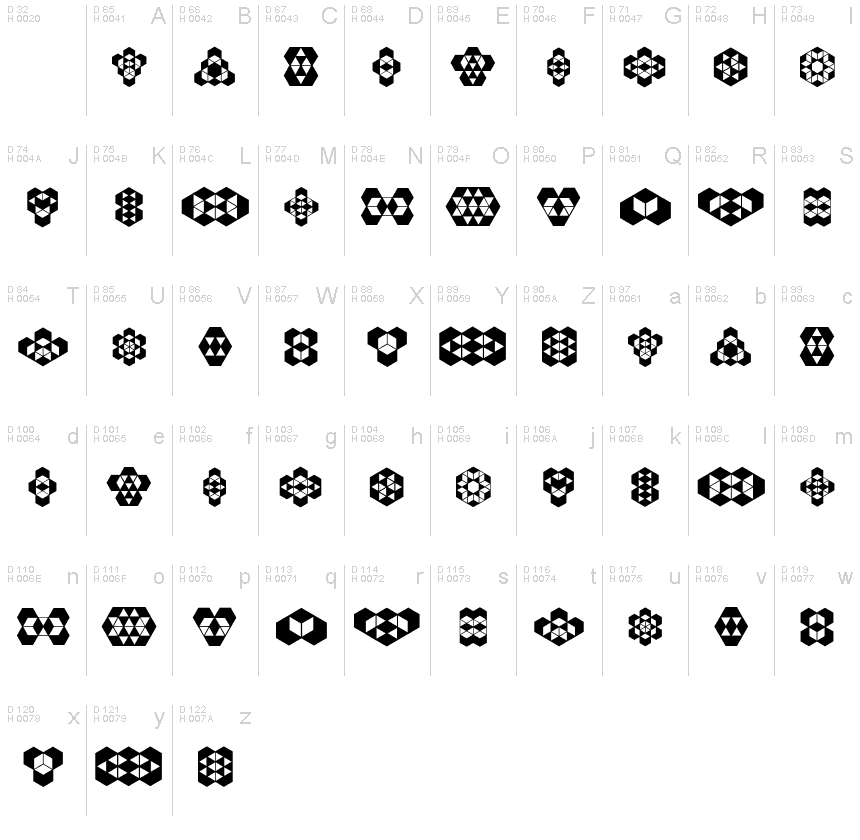
Hexagonos Regular
Hexagonos, the innovative creation by font designer Vladimir Nikolic, is a captivating dingbats typeface that will add a touch of uniqueness to your projects. With its hexagonal design, this font is ideal for crafting eye-catching logos, stylish posters, and modern user interfaces. The intricate patterns within Hexagonos make it perfect for creating striking patterns and decorative elements that will leave a lasting impression. Whether you're designing futuristic game interfaces or contemporary branding materials, this font will effortlessly elevate your visuals to new heights. Discover the possibilities of Hexagonos and unlock a world of creative potential.